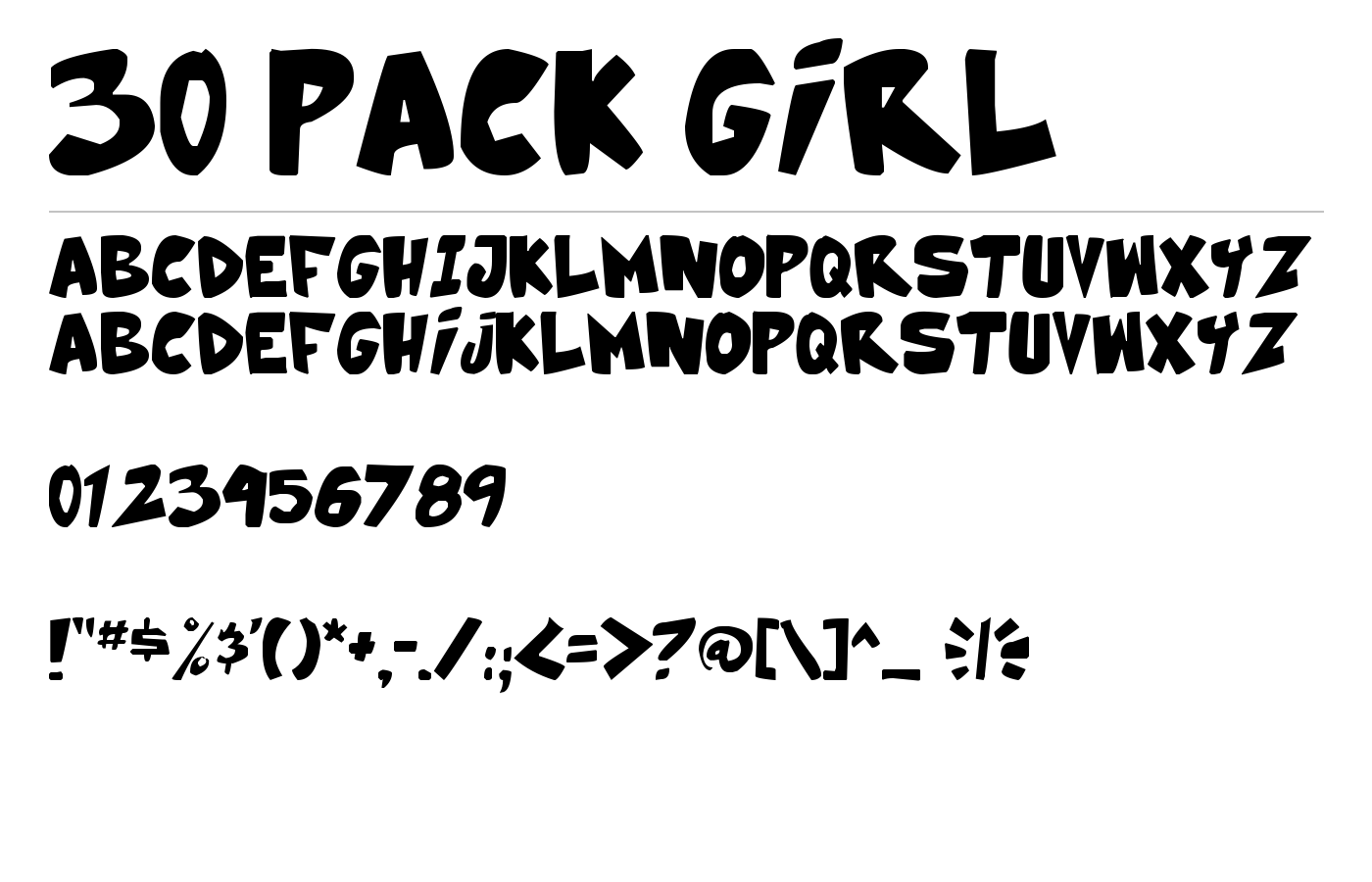
30 Pack Girl is a bold, playful sans serif font with a hand-drawn, casual style that features irregular shapes and a chunky, slightly condensed appearance. Its lively, uneven letterforms convey energy and fun, making it perfect for youth-oriented designs, informal branding, and creative projects that want to feel approachable and expressive. This font works well in headlines, posters, and logos where a quirky, friendly personality is desired.
30 Pack Girl Font